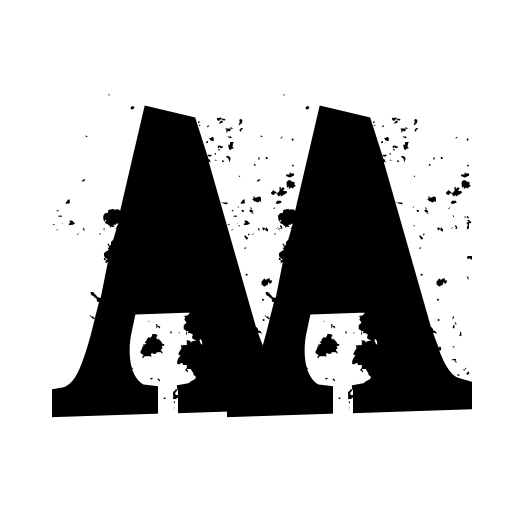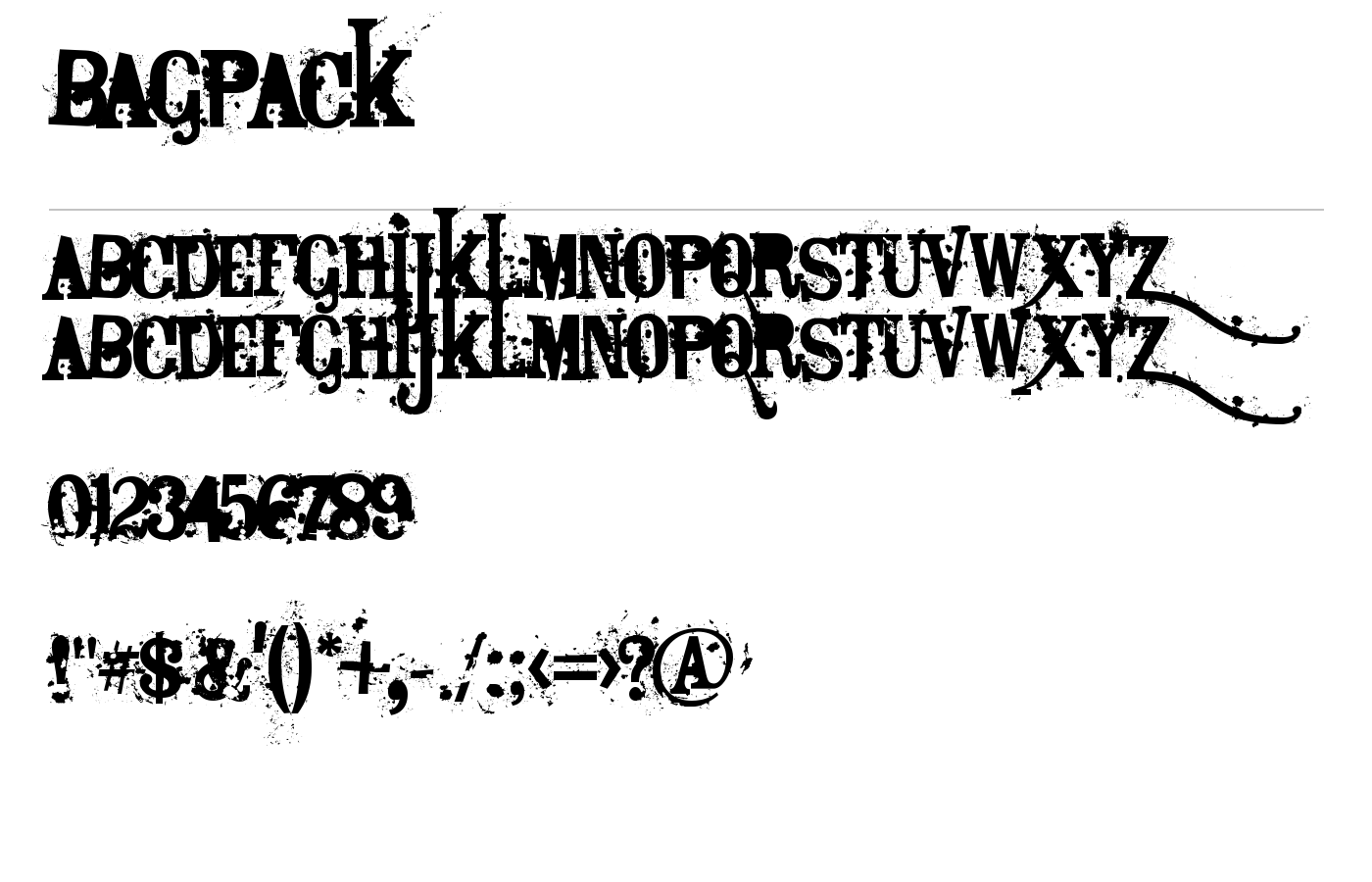
Bagpack is a bold, distressed slab serif font with a rugged, textured appearance that evokes a vintage, worn-out feel. Its heavy weight and wide letterforms combined with sharp, chunky serifs and uneven ink splatters create a gritty, urban personality perfect for grunge-inspired designs, posters, and edgy branding projects that want to convey toughness and raw energy. This font works best in headlines and display contexts where its strong impact and unique style can stand out.
Bagpack Font
About Bagpack Font